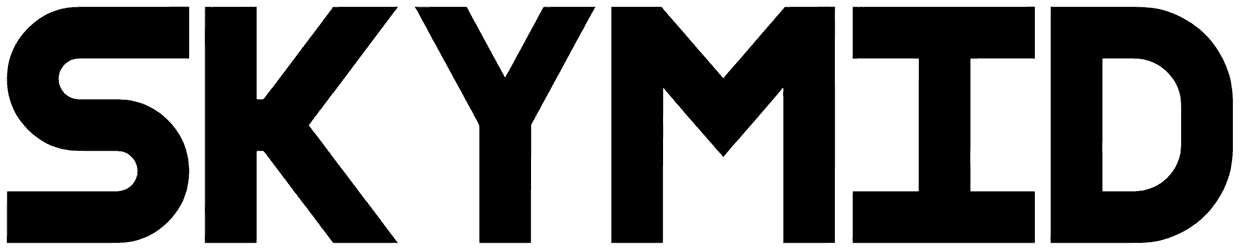
SkyMid Font
For creating a strong business card, logo, magazine cover, or even billboards, you require a strong font. In that order, we suggest SkyMid, a sans-serif font that gives your design what was lacking before.
This font doesn’t offer lowercase of the alphabets, numbers, or punctuation marks, but actually, it puts its utmost in highlighting your displays to stay ahead of the curve and spark the interest of the audience. Check out Resource Boy.